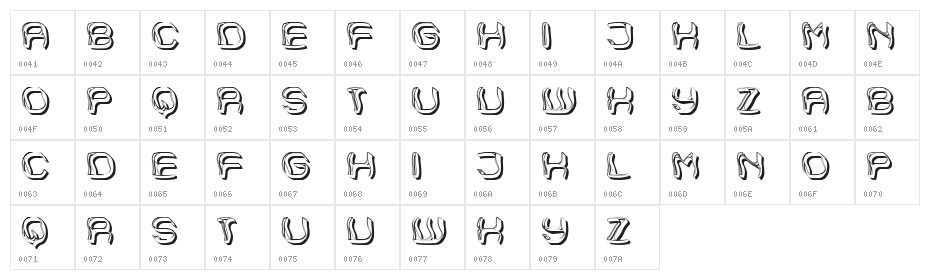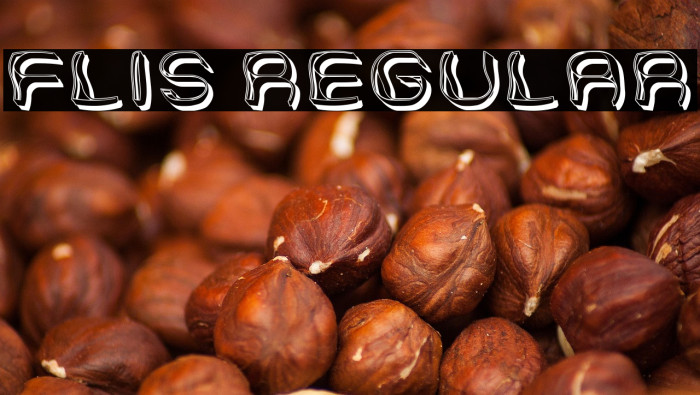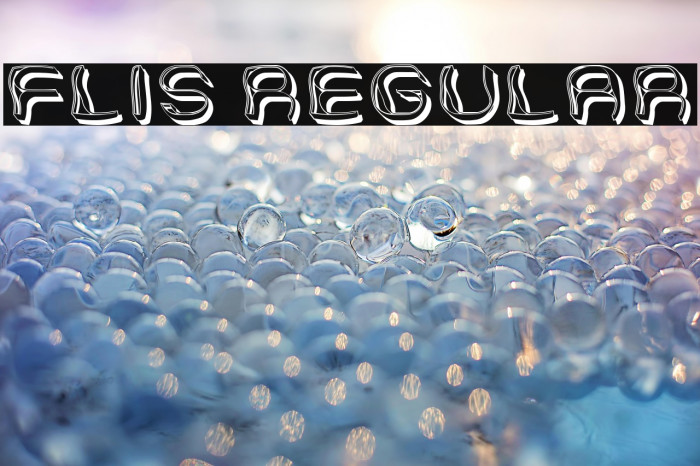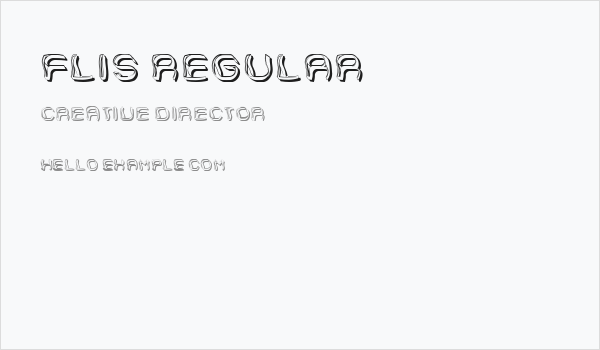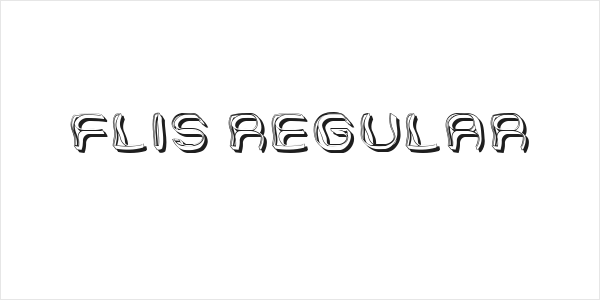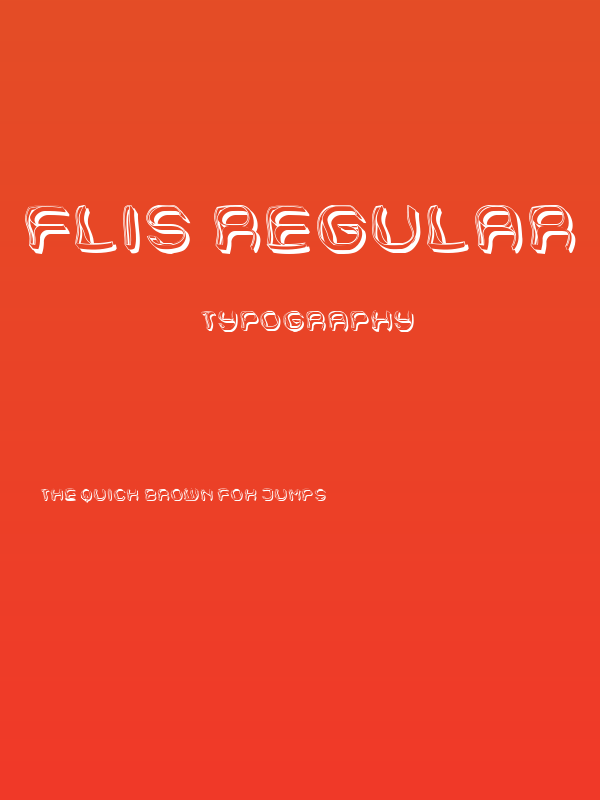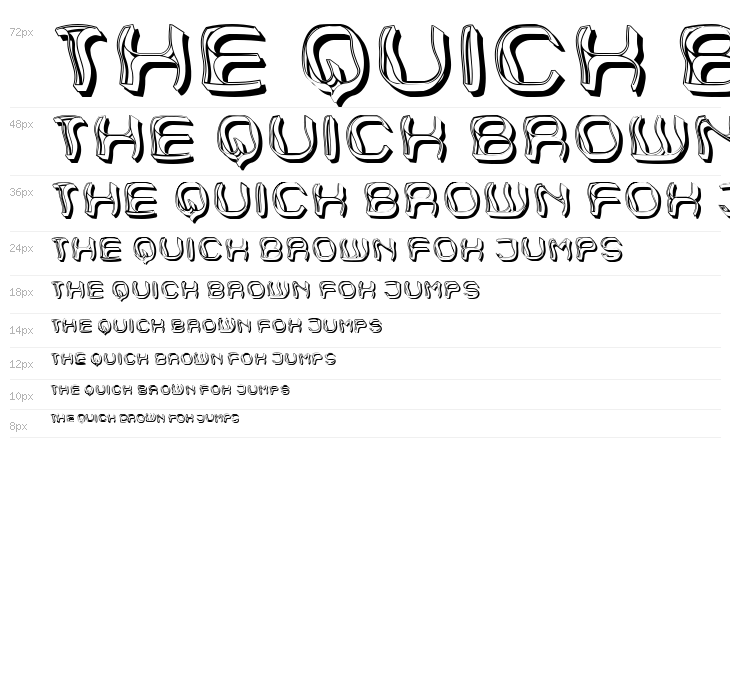
Flis Regular Font
✎ Distorted Eroded
Flis Regular Description
This font features a unique and artistic design with a three-dimensional, layered appearance. Each character is crafted with intricate lines and shadows, giving it a dynamic and textured look. The style is bold and eye-catching, making it suitable for creative and modern projects. The uppercase letters are consistent in their boldness, while the lowercase letters maintain the same artistic flair. The numbers and special characters follow the same design principles, ensuring a cohesive look across all elements.
| Proposed Projects | Ideal for posters, album covers, branding, and any project requiring a standout, artistic typeface. |